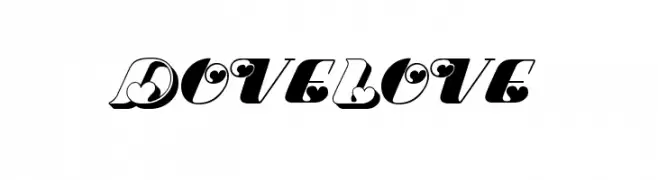
A bold, distressed font with a vintage, rugged aesthetic.
An elegant and flowing script font with ornate letterforms and dynamic style.
A bold, dynamic script font with flowing, cursive letters and strong visual impact.
An elegant and flowing script font with decorative swashes and heart accents.
An ornate blackletter font with decorative flourishes and bold, angular letterforms.
A bold, cursive font with interconnected letters and a handwritten style.
An elegant and flowing script font with intricate, decorative letterforms.
A bold, flowing script font with elegant curves and a classic calligraphic style.
A bold, modern cursive font with connected characters and strong visual impact.
A bold, expressive handwritten font with brush-like strokes and dynamic flow.
A bold, brush-style font with dynamic strokes and a handcrafted feel.
A lively and energetic script font with bold, flowing cursive forms.
A bold, elegant script font with flowing, calligraphic style.
A bold, cursive font with flowing lines and elegant slant.
A playful, rounded font with a smooth, flowing design and consistent stroke thickness.
A playful, casual font combining bold uppercase and script-like lowercase letters.
A bold, dynamic script font with interconnected, flowing letters and a modern, playful style.
A bold, playful script font with a handwritten feel, perfect for lively projects.
A bold, cursive font with a flowing, handwritten style.
A flowing, cursive font with elegant, sweeping strokes and a handwritten appearance.
A flowing, cursive font with elegant, sweeping lines and ornate uppercase letters.
A bold, cursive font with a flowing, handwritten style.
A bold, elegant script font with flowing, cursive letters and ornate uppercase characters.
An elegant, flowing script font with ornate uppercase and smooth lowercase letters.
A bold, distressed font with a grunge effect, perfect for impactful designs.
A flowing, cursive font with elegant, connected strokes.